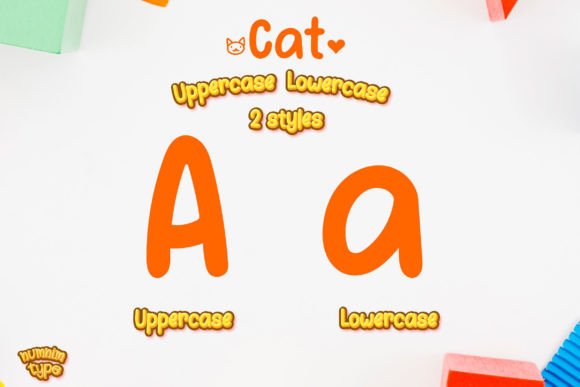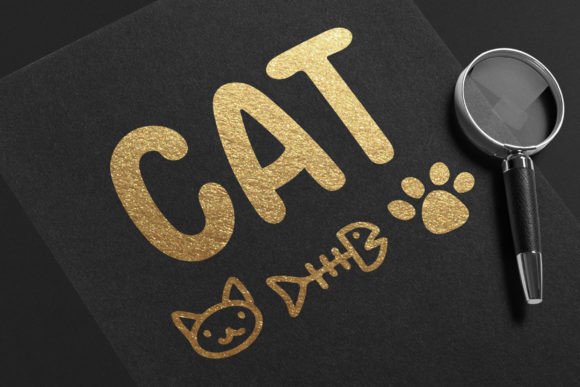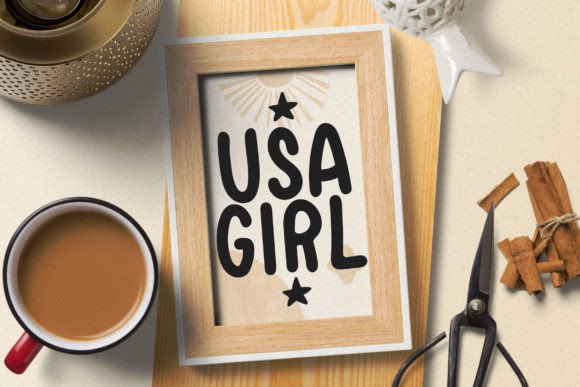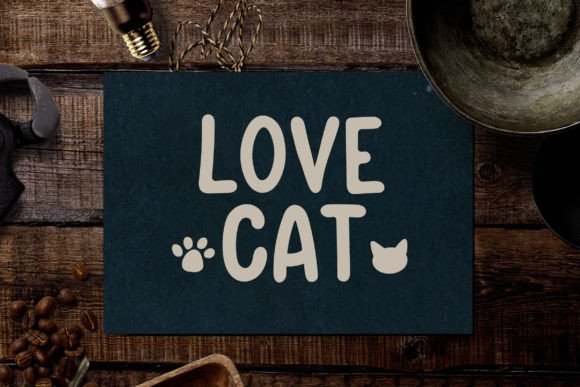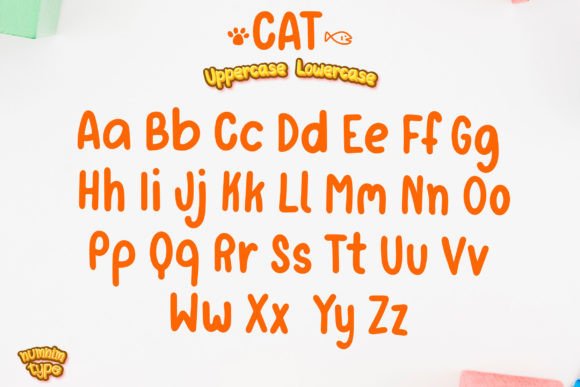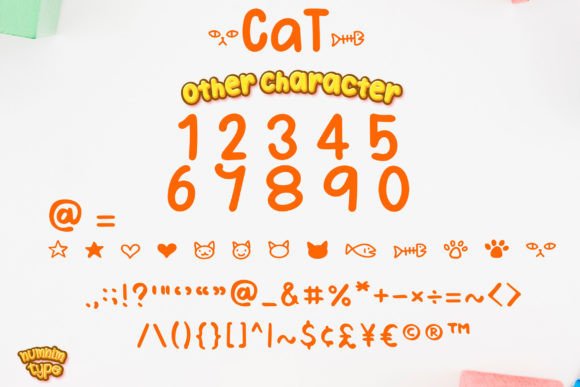
Meet Your New Feline Friend: Cat Font
Who among us hasn’t had a moment of pure creative bliss, where the perfect font suddenly pops into our minds and we can’t wait to bring it to life? For designers and crafty enthusiasts, this feeling is a familiar sensation. And for those who’ve been searching for the purr-fect addition to their next project, we’re excited to introduce you to Cat Font – a vibrant, handwritten font that’s sure to put a smile on your face.
This delightful font is designed to evoke a sense of joy and playfulness, making it perfect for stickers, mugs, t-shirts, ornaments, and more. With its fun and quirky characters, Cat Font is sure to add a touch of whimsy to any project. As a PUA-encoded font, you’ll have easy access to all the glyphs and swashes, giving you the freedom to get creative and express yourself.
- Unique Characteristic: The font features a unique, whimsical design that incorporates cat silhouettes and other feline-inspired elements, adding a touch of personality to any text.
Cat Font Review
Cat Font is an intriguing font that caught my attention with its quirky design. Here’s a breakdown of what I think works well and what might be improved:
- ✨ Unique design: Cat Font offers a refreshing take on traditional fonts, making it perfect for designers looking for something unusual.
- ✨ Versatility: It can be used for various design projects, from logos and branding to posters and packaging.
- ✨ High-quality glyphs: The font includes a wide range of glyphs, ensuring that you’ll find the perfect character for your project.
- ⚠️ Limited legibility: The font’s unique design might make it difficult to read at small sizes or in certain contexts.
- ⚠️ Limited language support: Cat Font seems to focus primarily on English characters, which might limit its use for multilingual projects.
Overall, Cat Font is a fun and creative option for designers looking to add some personality to their projects. While it has its limitations, it’s well-suited for projects where a unique, quirky feel is desired. With some careful consideration and planning, Cat Font can be a great addition to your design arsenal.
Getting the Most Out of Cat Font
To get the most out of Cat Font, use it sparingly and in context. This font is ideal for creating whimsical and playful designs. Try pairing it with bold fonts for contrast or using it as a heading font to add visual interest.
Cat Font is perfect for:
- Playful advertisements
- Whimsical website headers
- Fun social media graphics